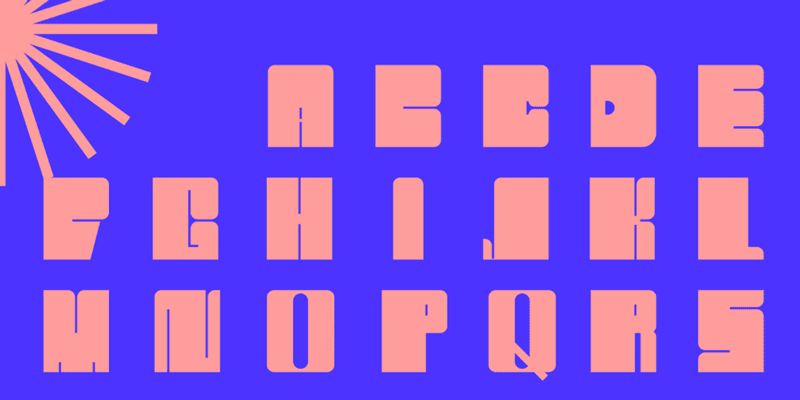
CH Bold – Open Type Font
Check out this open-type font with a strong bold that you will find perfect for certain posters, announcements, banners, and more. Find out more Bold Fonts.